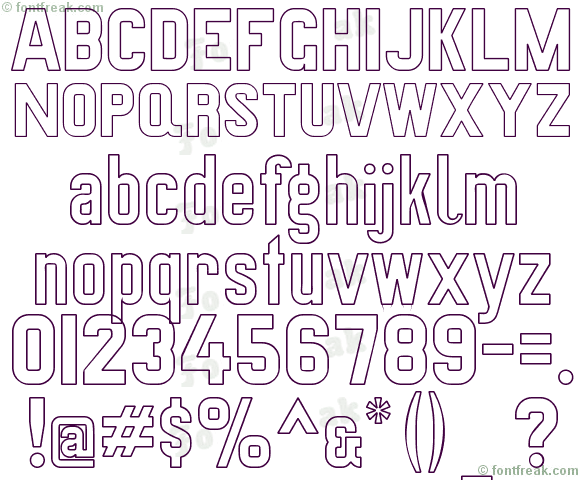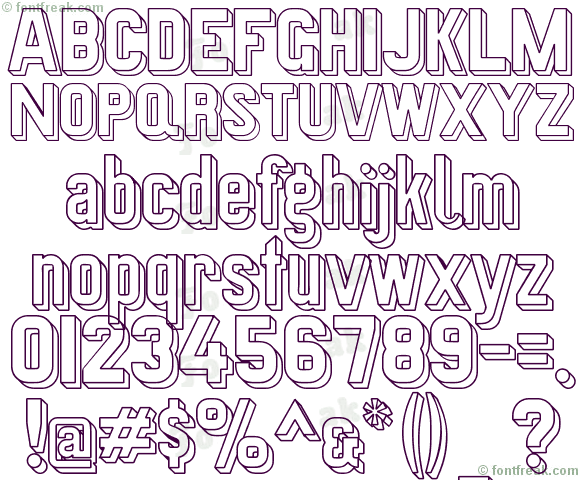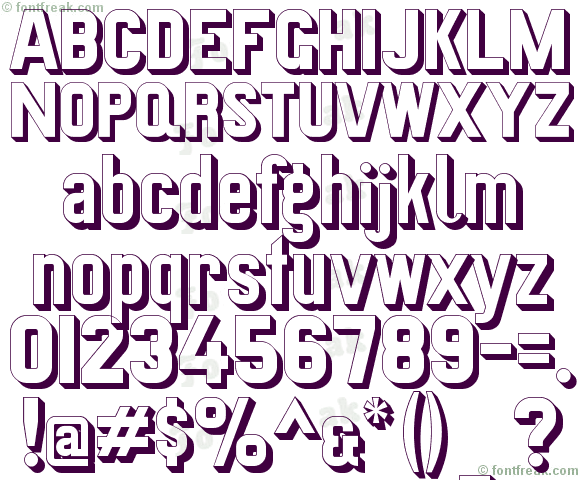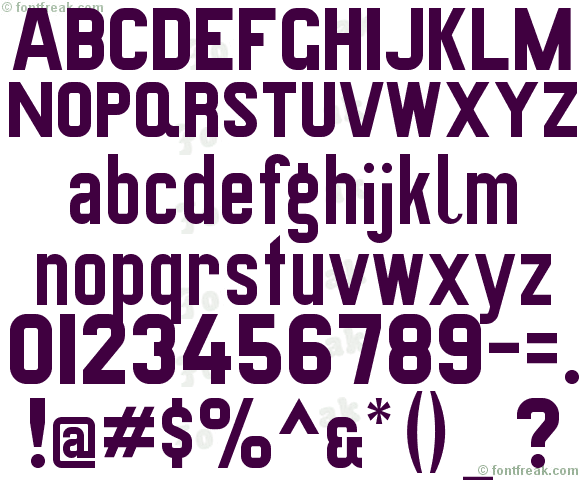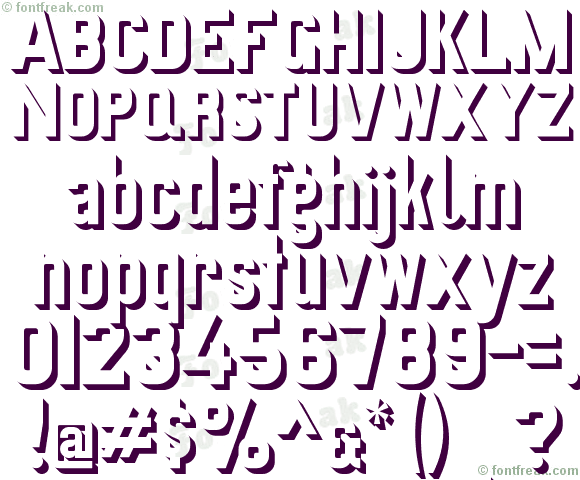
Preussische VI 9
Preussische VI 9 Linie
Schattern von Preussische VI 9
Preussische VI 9 Schatten
Preussische VI 9 Schatten-Linie
Preussische VI 9, designed by Peter Wiegel, is a striking sans-serif typeface that embodies a modern aesthetic with a hint of classic influence. Characterized by its clean lines and uniform stroke weight, this font offers a contemporary look while maintaining readability. The absence of excessive decorative elements allows for a versatile application across various design projects. The spacing between characters is well-considered, contributing to a balanced appearance that enhances clarity even at smaller sizes.
This font is ideal for a variety of use cases. Its straightforward yet elegant style makes it suitable for restaurant menus, where easy readability is crucial. It works beautifully in corporate branding materials, such as business cards and letterheads, giving a professional edge to any business. Additionally, Preussische VI 9 is perfect for event posters, particularly for cultural or artistic events, where a modern touch is desired. Graphic designers will find it an excellent choice for book covers, providing a clean and appealing title presentation. Content creators can also utilize this font for digital platforms, ensuring their text stands out without overwhelming the audience.
What sets Preussische VI 9 apart is its harmonious blend of simplicity and sophistication. Its versatile nature allows it to adapt seamlessly to various design contexts, making it a favorite among those who appreciate both functionality and aesthetics. For those interested, a Preussische VI 9 font free download is available, allowing easy access to this compelling typeface.